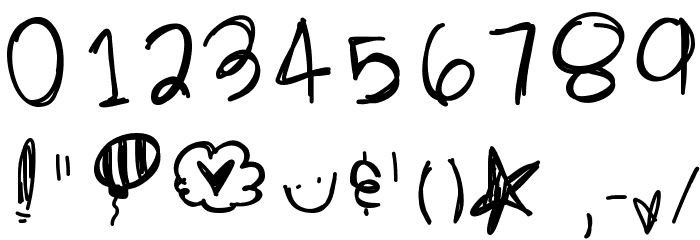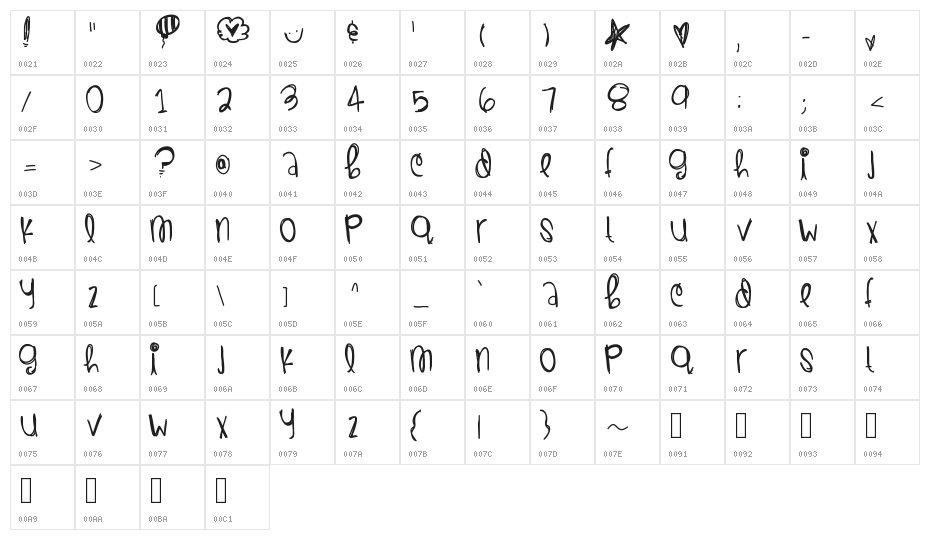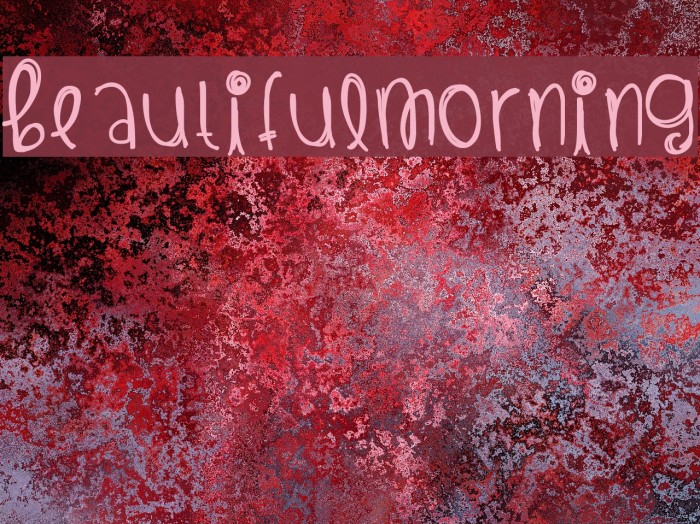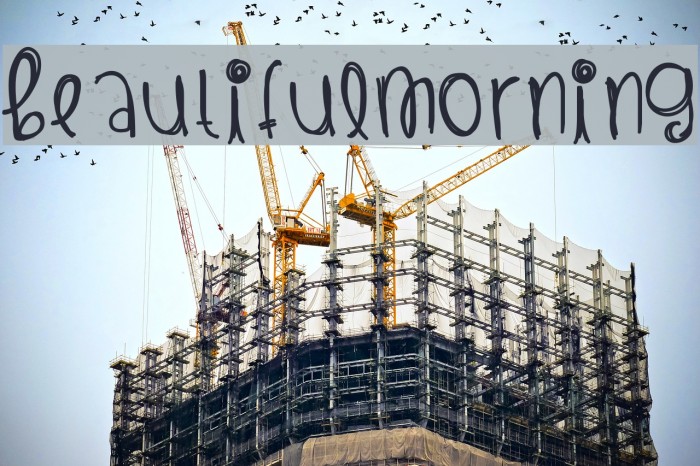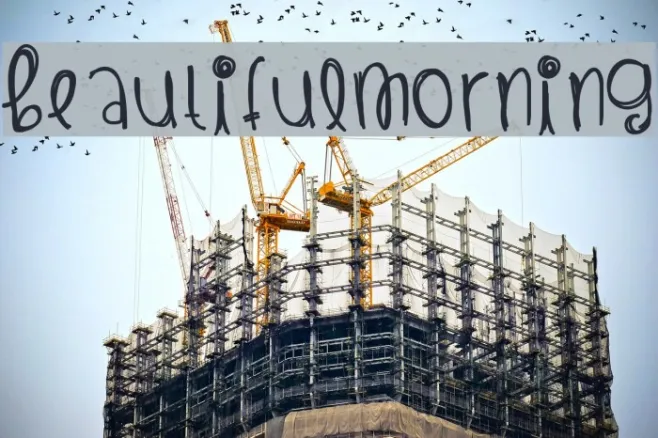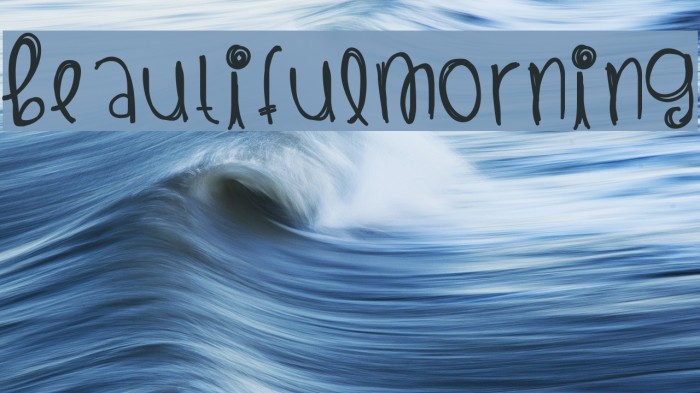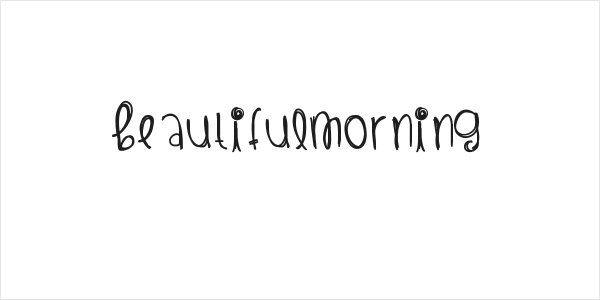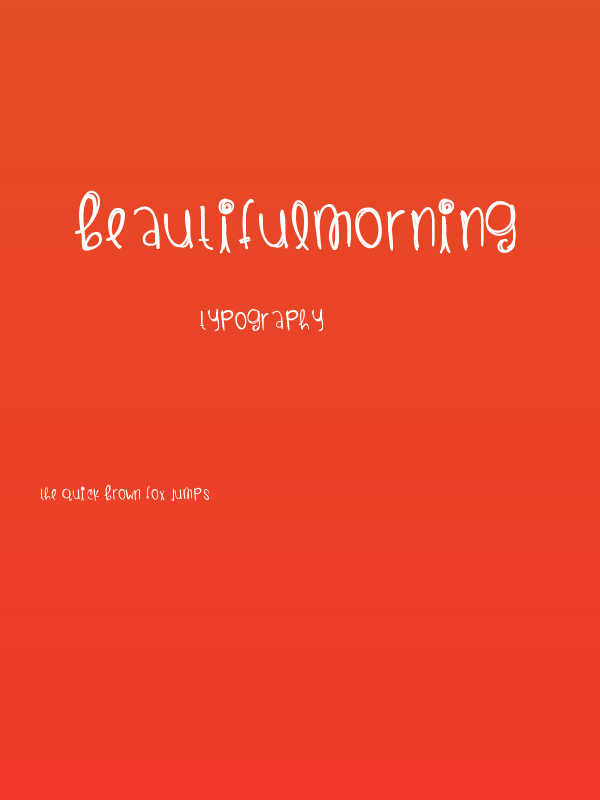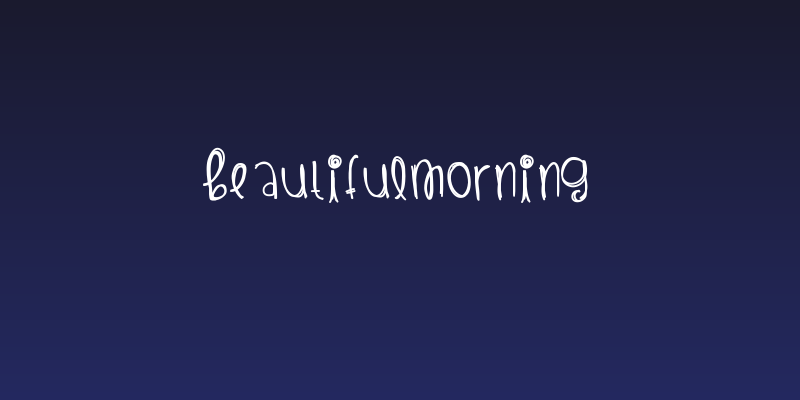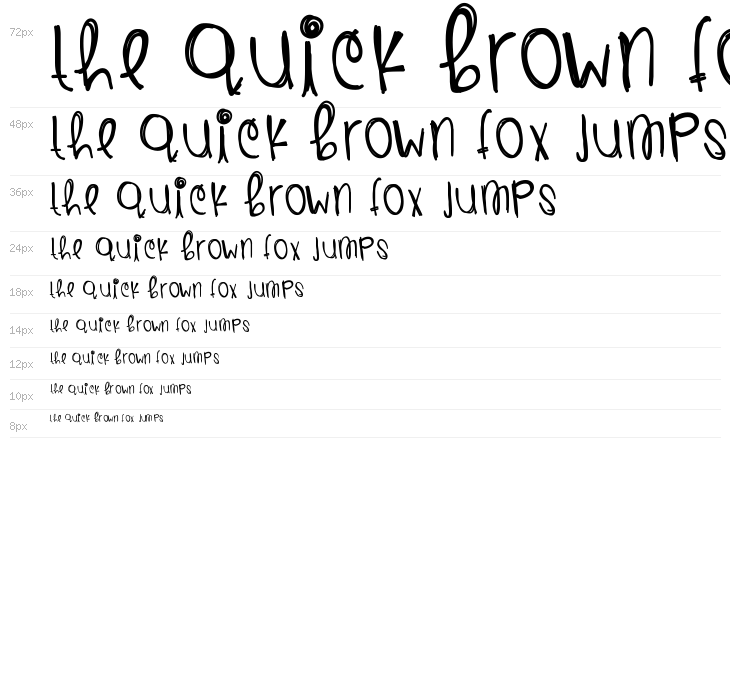
BeautifulMorning Font
BeautifulMorning Description
This playful and whimsical font features a handwritten style with a quirky and artistic flair. The letters are characterized by their uneven strokes and playful loops, giving them a lively and informal appearance. The font includes both uppercase and lowercase letters, numbers, and a variety of special characters, each maintaining the same energetic and fun style. The strokes are bold and expressive, with a medium contrast that adds to the font's dynamic feel. This font is perfect for projects that require a personal touch or a creative, informal vibe.
| Proposed Projects | Ideal for greeting cards, children's books, playful branding, and creative posters. |